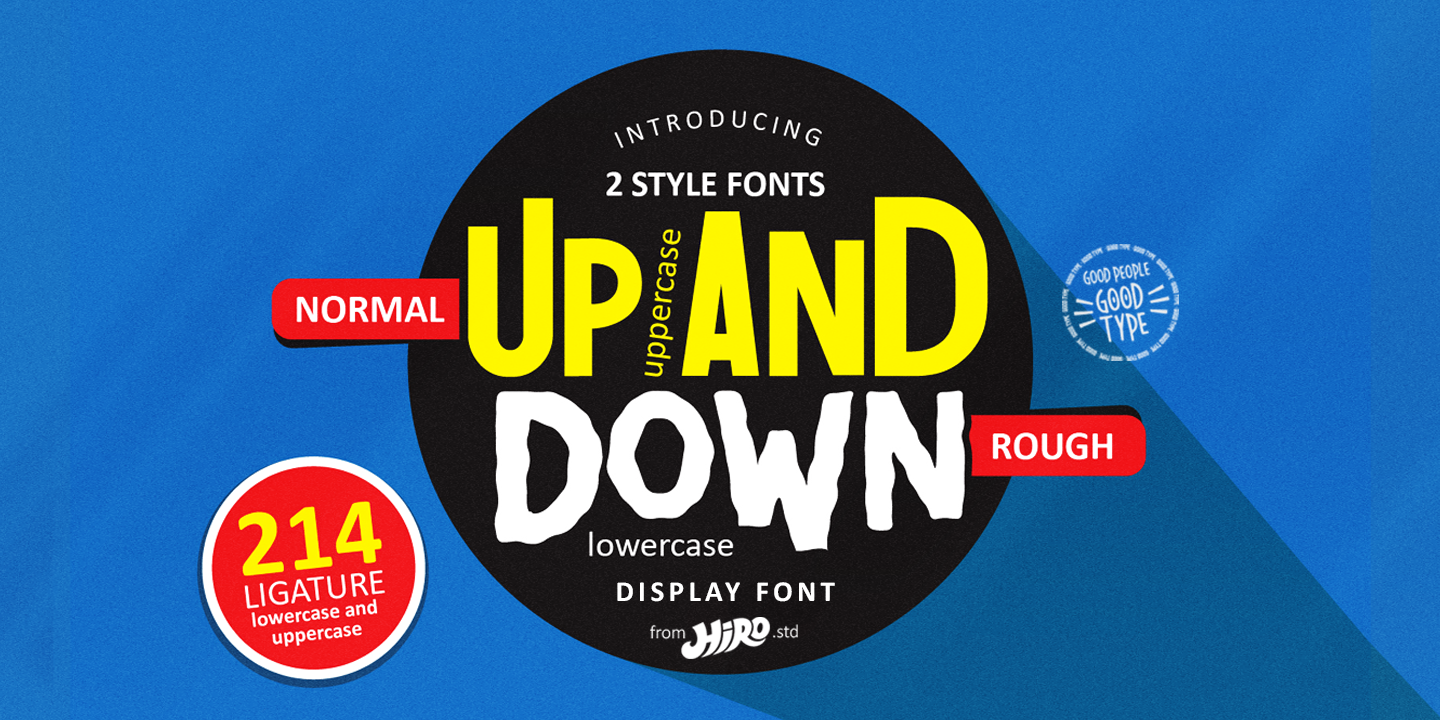
Up and Down Font is ideal for dynamic motion graphics, roller coaster branding, amusement park signage, adventure tour promotions, extreme sports marketing, fitness motivation campaigns, carnival event posters, theme park communications, excitement-driven advertising, thrill-seeking merchandise, entertainment venue branding, and energetic lifestyle promotions. This dynamic typeface excels in applications requiring movement and excitement, making it perfect for entertainment venues, adventure companies, thrill-based businesses, and brands targeting audiences seeking exciting experiences and dynamic entertainment.
What makes Up and Down Font exciting is its remarkable ability to convey dynamic movement and energetic excitement through animated typography. The font features bouncing letterforms with varying baseline positions and rhythmic character variations that create visual movement and kinetic energy. Its playful construction and dynamic design simulate the thrilling sensation of ups and downs, while maintaining excellent readability across all applications. The font's distinctive personality embodies the essence of exciting adventures and thrilling experiences, making it perfect for brands seeking to capture the excitement of dynamic movement and exhilarating entertainment.
The Up and Down Font family typically includes multiple weights such as Light, Regular, Medium, Bold, and Black variations, along with their corresponding italic styles. Many collections also feature motion alternates, dynamic ligatures, and movement-inspired decorative elements that enhance the font's energetic character. Some comprehensive packages include thrill symbols, motion borders, and excitement glyphs that provide complete design flexibility for entertainment and adventure projects promoting dynamic experiences and thrilling adventures.
Up and Down Font Free Download represents the perfect fusion of dynamic aesthetics and typographic excellence. This remarkable typeface brings instant excitement and kinetic appeal to any project, making it particularly valuable for entertainment brands, adventure companies, and thrill-focused businesses seeking to establish energetic, movement-oriented brand identities. The font's versatile nature allows it to perform dynamically in both large motion displays and detailed entertainment communications.
Designers love Up and Down Font for its ability to instantly convey excitement, dynamic movement, and thrilling energy that creates engaging experiences with audiences seeking adventure and entertainment. The font's excellent construction ensures smooth performance across various media and applications, while its dynamic appeal adds immediate kinetic energy to any design project. The comprehensive character set includes standard Latin characters, numerals, punctuation marks, and special symbols, making it suitable for entertainment communications, adventure publications, and diverse thrill-based applications.
This exceptional typeface successfully captures the essence of dynamic movement and thrilling excitement while offering modern functionality, providing designers with an authentic tool for creating memorable and impactful communications that resonate with audiences seeking exciting experiences, dynamic entertainment, and exhilarating adventures.